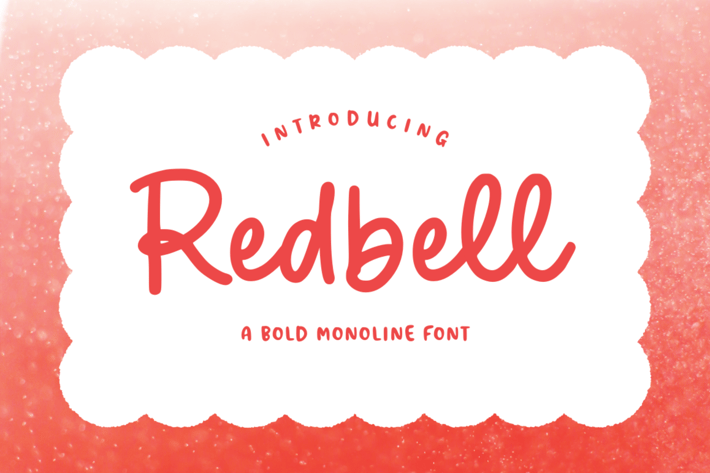
Redbell - Bold Monoline Font
Introducing “Redbell,” a bold monoline script font that commands attention with its strong and uniform strokes. With its striking appearance and consistent lines, this font exudes confidence and modernity. Perfect for projects that require a bold and impactful statement, such as logos, branding, or headlines, “Redbell” adds a touch of boldness and sophistication to your designs, ensuring they stand out with a bold monoline aesthetic.